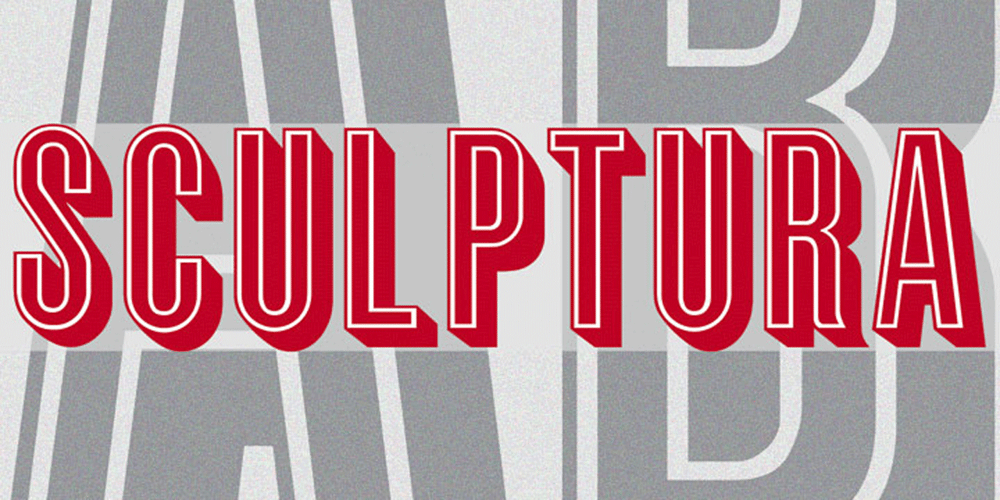
Sculptura CT
Sculptura CT font
Sculptura CT Font Family was designed by Jason Castle and published by CastleType. Sculptura CT contains 1 styles and family package options. A wonderful, very condensed, 3D font. A few years ago, I was commissioned to digitize the letters from this typeface for the words ‘LEGENDS OF RODEO’ and liked the look of it so much that I went ahead and digitized the rest of the alphabet. This CastleType revival is very clean-cut and contains uppercase, numerals, and punctuation. Sculptura was originally designed by the Swiss designer, Walter J. Diethelm (1913-1986) in 1957.